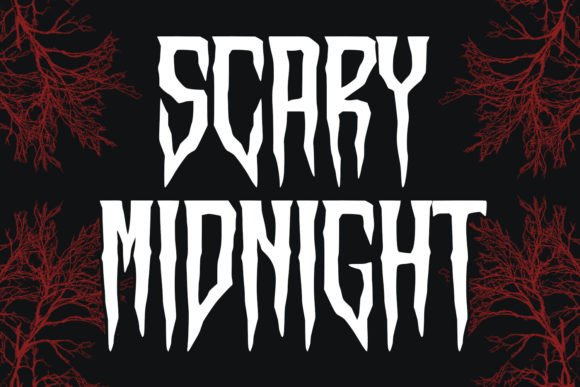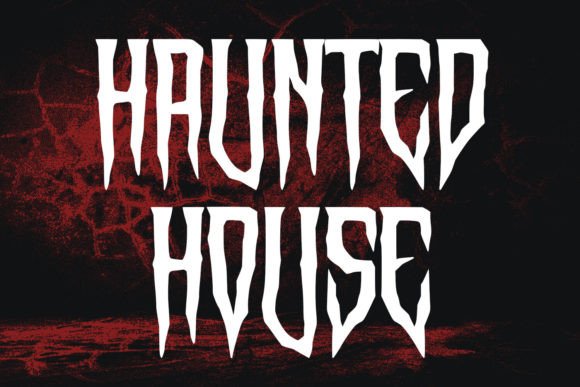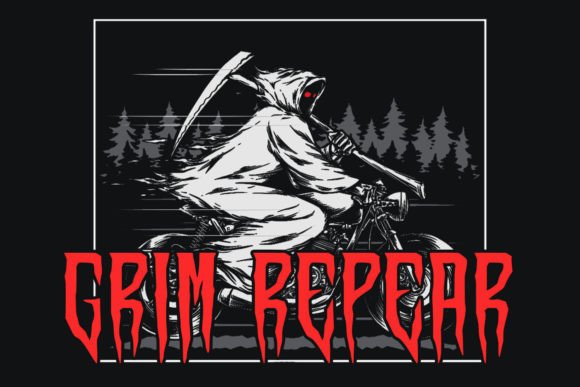
Unleashing the Power of Karmanz Font
Have you ever stared at a blank canvas, waiting for that spark of inspiration to strike? The moment when everything comes together, and your creative vision is finally realized? For designers, this moment is what drives us to push the boundaries of our craft. And when it comes to making a lasting impression, the right font can be the difference between a good design and a great one.
That’s where the Karmanz Font comes in – a versatile, high-quality display typeface that’s perfect for adding a touch of sophistication to your creative project. With its bold strokes, fun character, and thoughtful ligatures and alternates, this font is a design resource like no other. Whether you’re working on a logo design, social media campaign, or movie title, Karmanz Font is the perfect companion to help you bring your vision to life.
Key Features of Karmanz Font
- Unique, hand-drawn style with a transparent background, allowing for easy layering and customization.
Honest Review: Karmanz Font
As a designer, I’m always on the lookout for high-quality design resources that can elevate my creative projects. Recently, I stumbled upon the Karmanz Font, and I must say it’s been a game-changer. ✨
The Karmanz Font is a free download that boasts a sleek, modern design. Its transparent background makes it perfect for overlaying on top of images or videos, adding a touch of sophistication to any creative project. I’ve used it in a variety of contexts, from branding materials to social media graphics, and it never fails to impress.
Here are some of the things I love about the Karmanz Font:
- Sleek, modern design that’s perfect for contemporary branding
- Transparent background for seamless overlaying
- High-quality font that’s suitable for print and digital use
However, I do have a few minor complaints:
- The font may not be suitable for very large or complex text blocks
- It’s not as versatile as some other fonts in terms of style options
Overall, I’m thoroughly impressed with the Karmanz Font. It’s a valuable addition to any designer’s toolkit, and I highly recommend it for any creative project that requires a touch of sophistication. ⚠️ Just be aware of its limitations, and you’ll be golden! ✨
Tips for Getting the Most Out of Karmanz Font
Use the Karmanz Font with a transparent background to create a modern and sleek design. Experiment with different font sizes and colors to add visual interest to your design. Consider pairing the Karmanz Font with other design elements, such as images or shapes, to create a unique and eye-catching design.
The Karmanz Font is suitable for a wide range of creative projects, including logos, business cards, and social media graphics. Its high-quality design and transparent background make it an ideal choice for modern and sleek designs.
Q: Can I use the Karmanz Font with a transparent background?
Yes, the Karmanz Font has a transparent background, making it ideal for use on complex backgrounds or with layered designs. This feature allows you to achieve a seamless and professional-looking design without any distracting background elements.